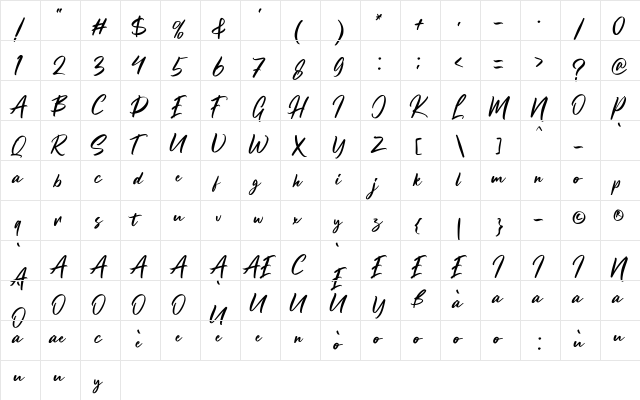
Brushter Regular
Design Context for Brushter Typeface
Brushter flows with the natural rhythm of handwritten lettering, making it ideal for designs that call for warmth and personal expression.
Font Pairing: Combine Brushter with a simple geometric sans for maximum contrast — the tension between flowing curves and clean structure is a classic typographic pairing.
Pro Tip: Use Brushter for short runs of text — names, titles, or taglines. Extended body copy in script faces tires the eye quickly.